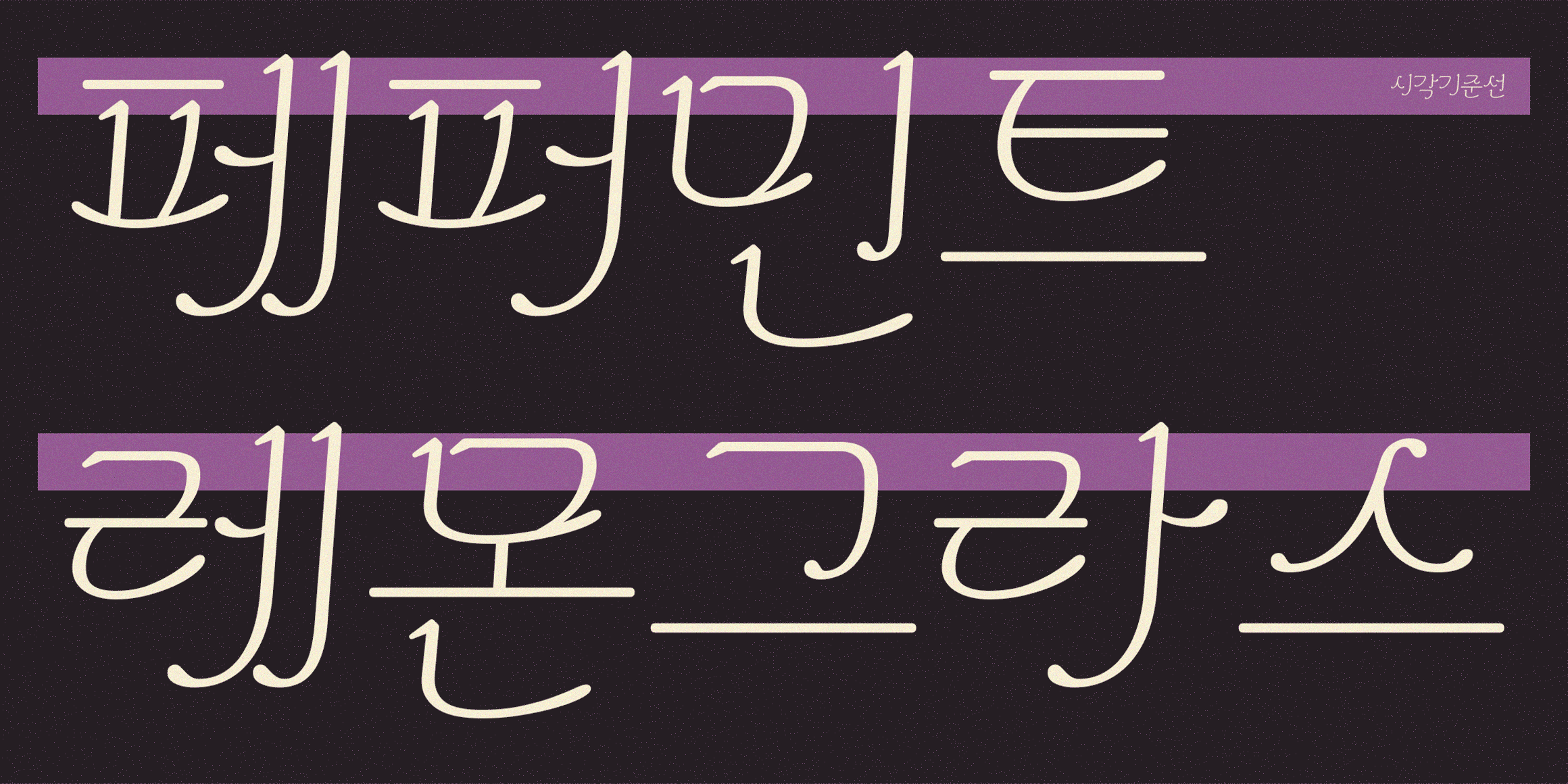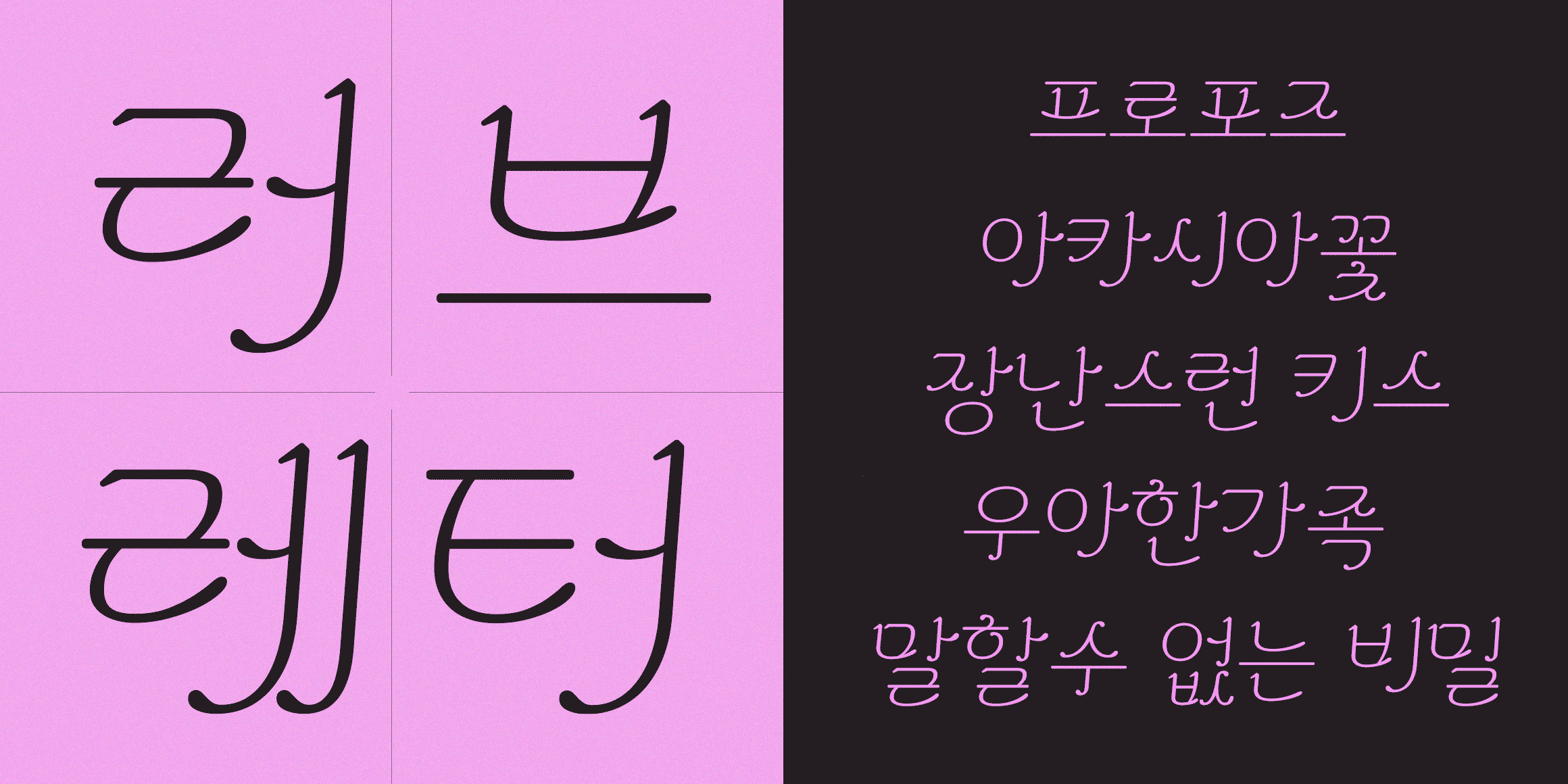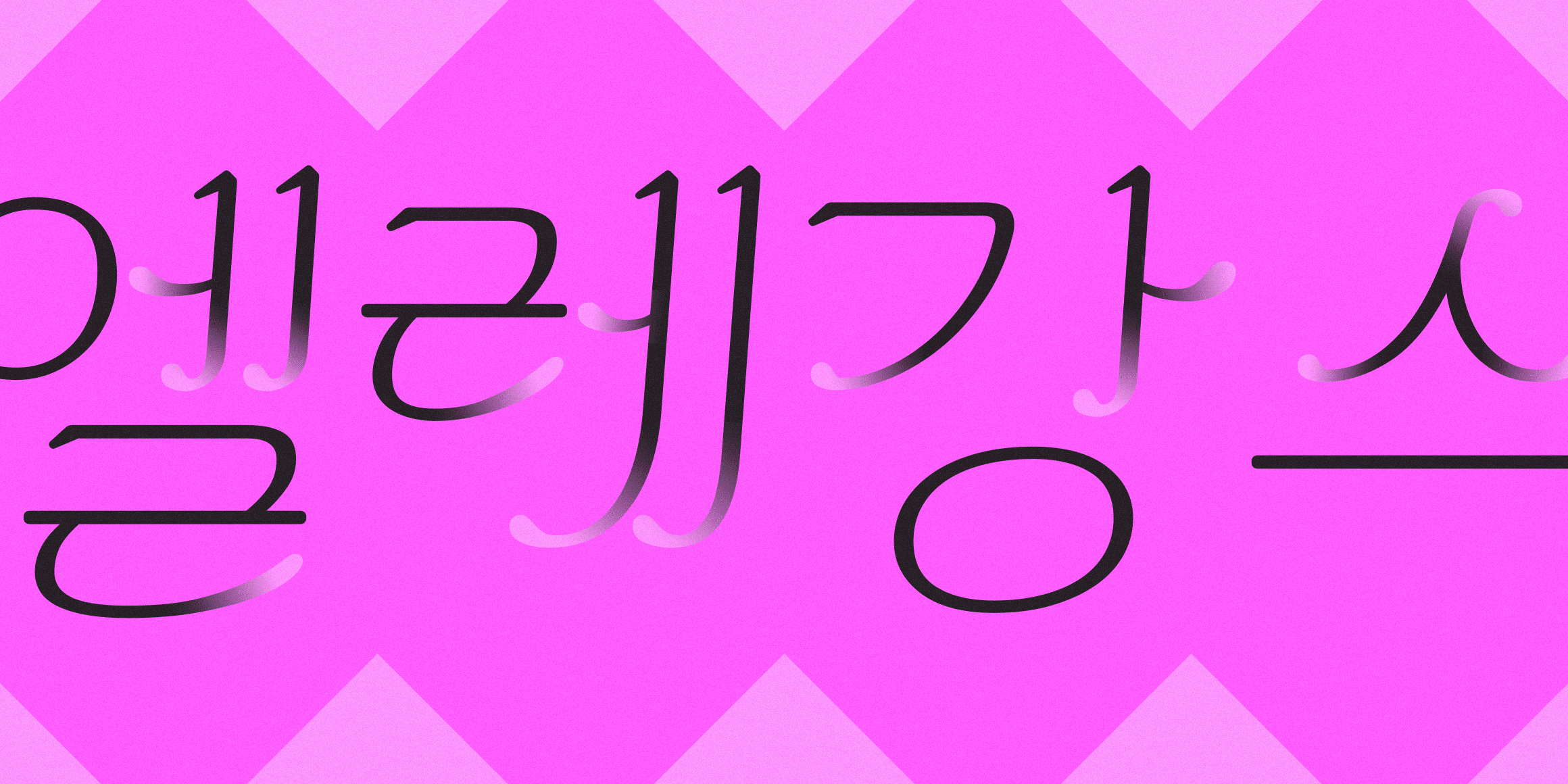
Each letter has a luxurious impression expressed by adding ink-like shapes and serifs.
Also, the slanted shape design allows for the reminiscent of handwriting with a pen tip.
The visual reference line is designed at the top, so that when typeset, you can feel the clean alignment at the top and the rhythm based on the bottom.
- 210 Elegance / 210 Elegance